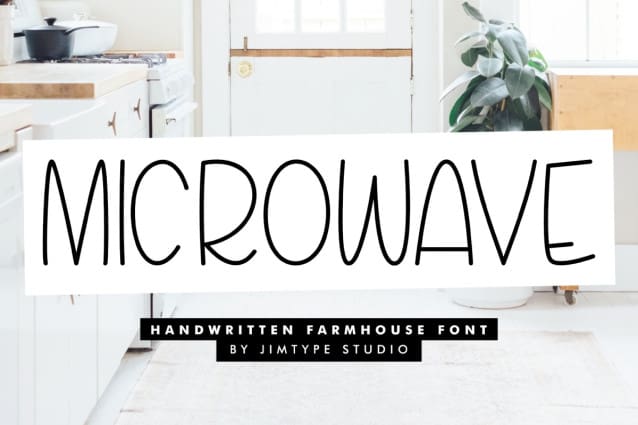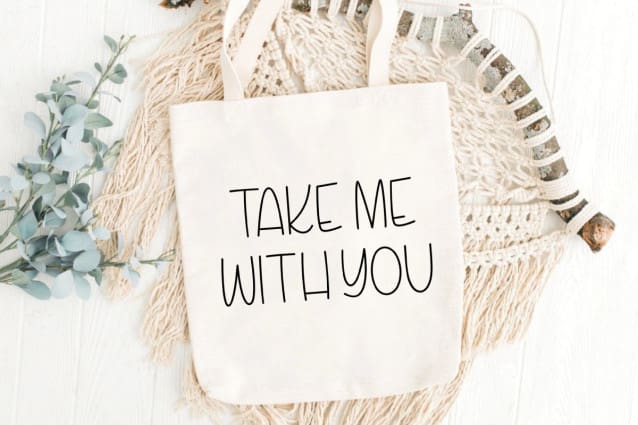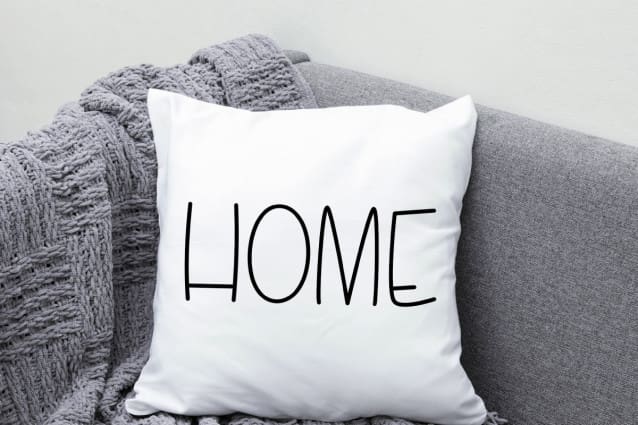
Microwave Hand Font
Microwave Hand Font – a tall and slender typeface radiating cuteness in every letter. This font is your go-to choice for farmhouse-inspired designs, Cricut projects, SVG files, mugs, shirts, and beyond!
Elevate your Cricut projects with Microwave Font. Its tall and thin design ensures clean and precise cuts, making it a perfect companion for your crafting adventures. Whether you’re crafting for the farmhouse aesthetic or adding a playful twist to your merchandise, this font is your delightful companion.